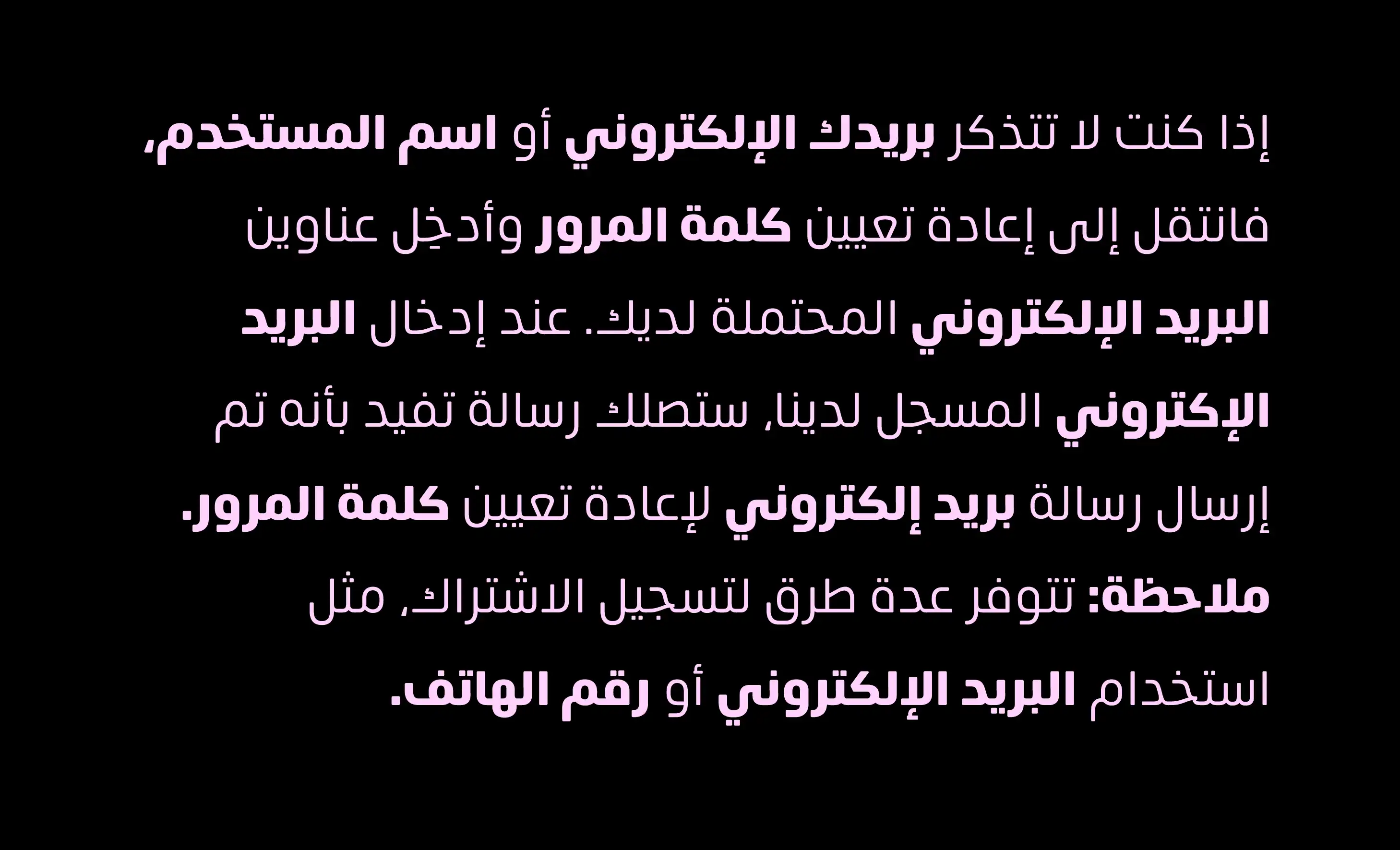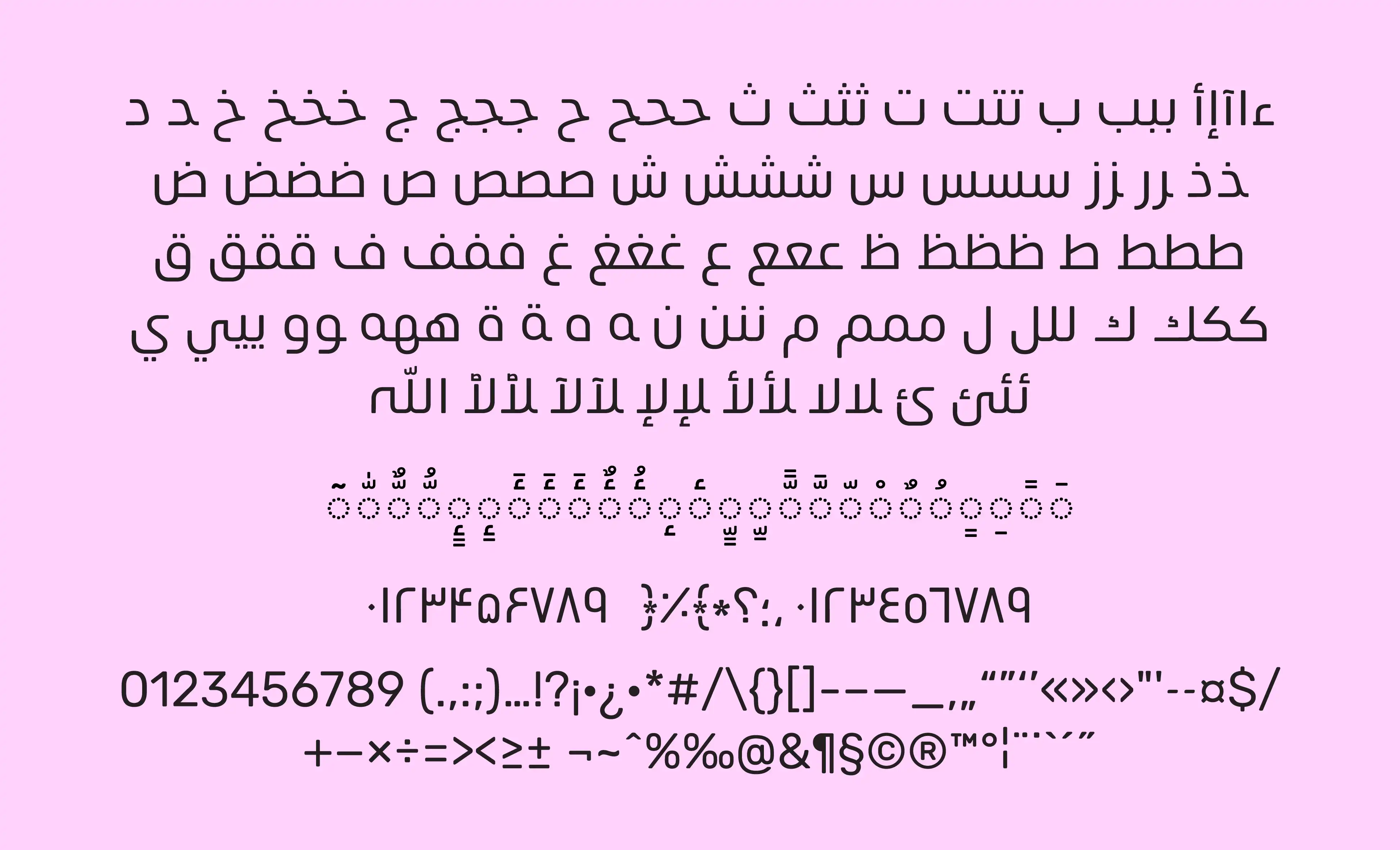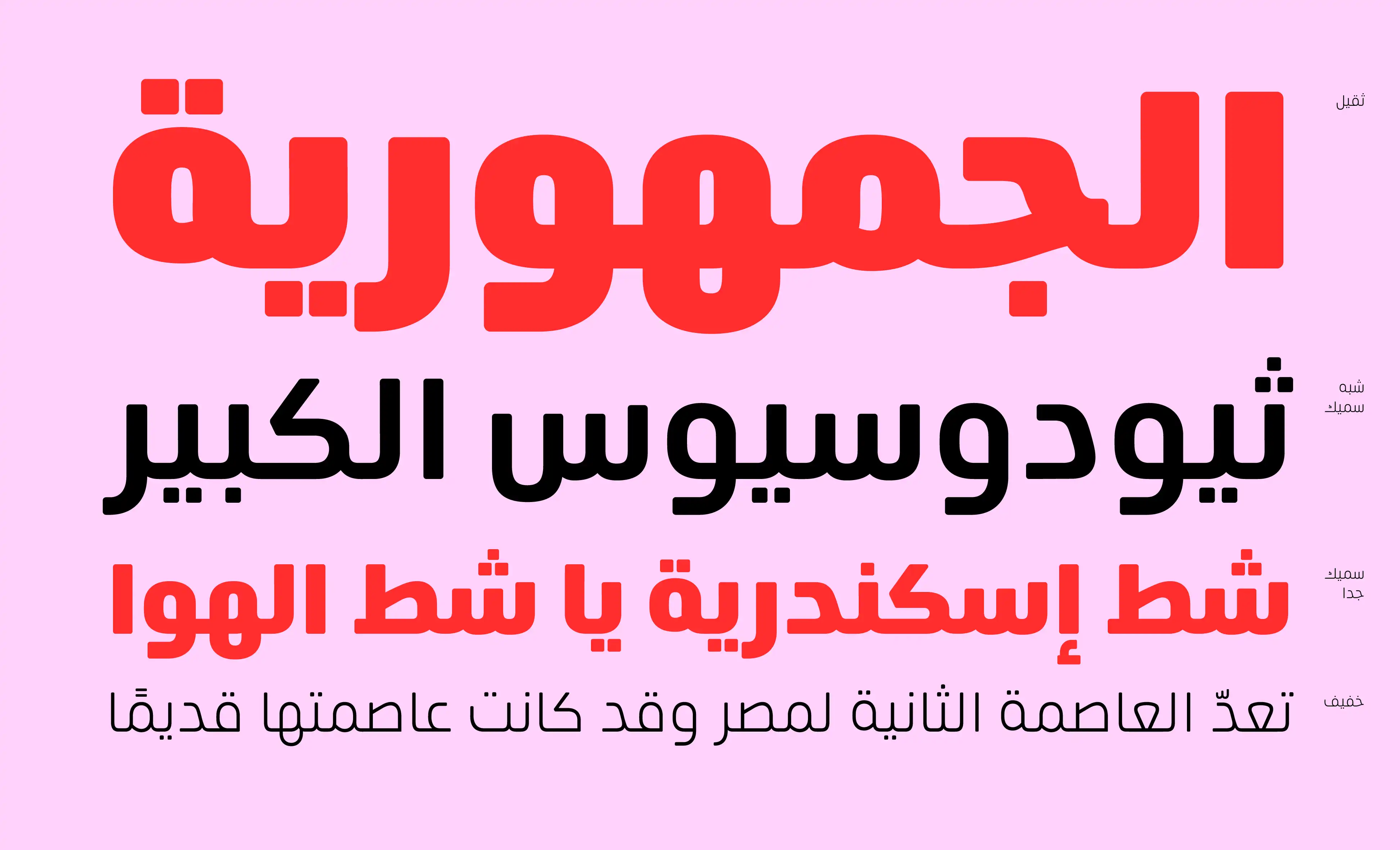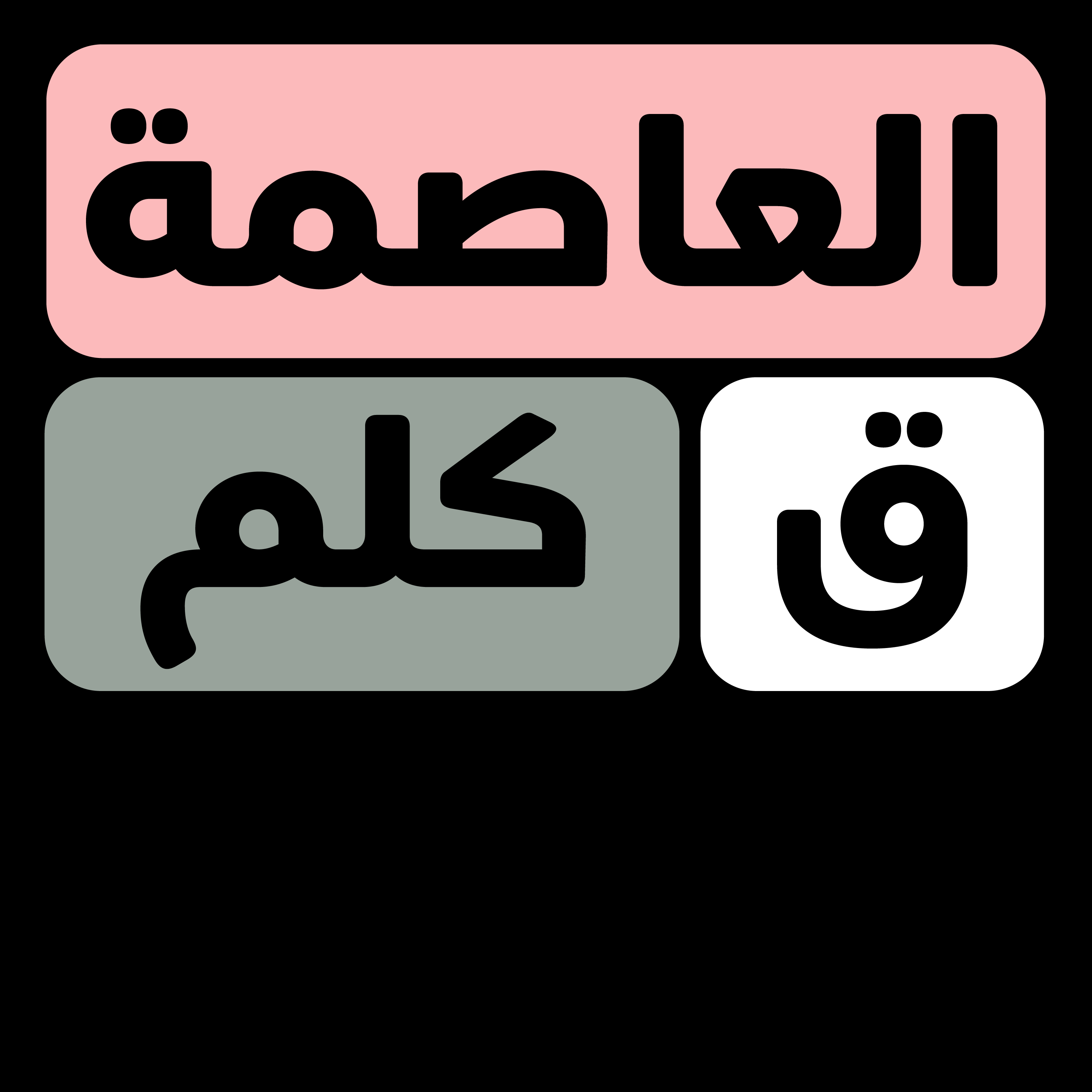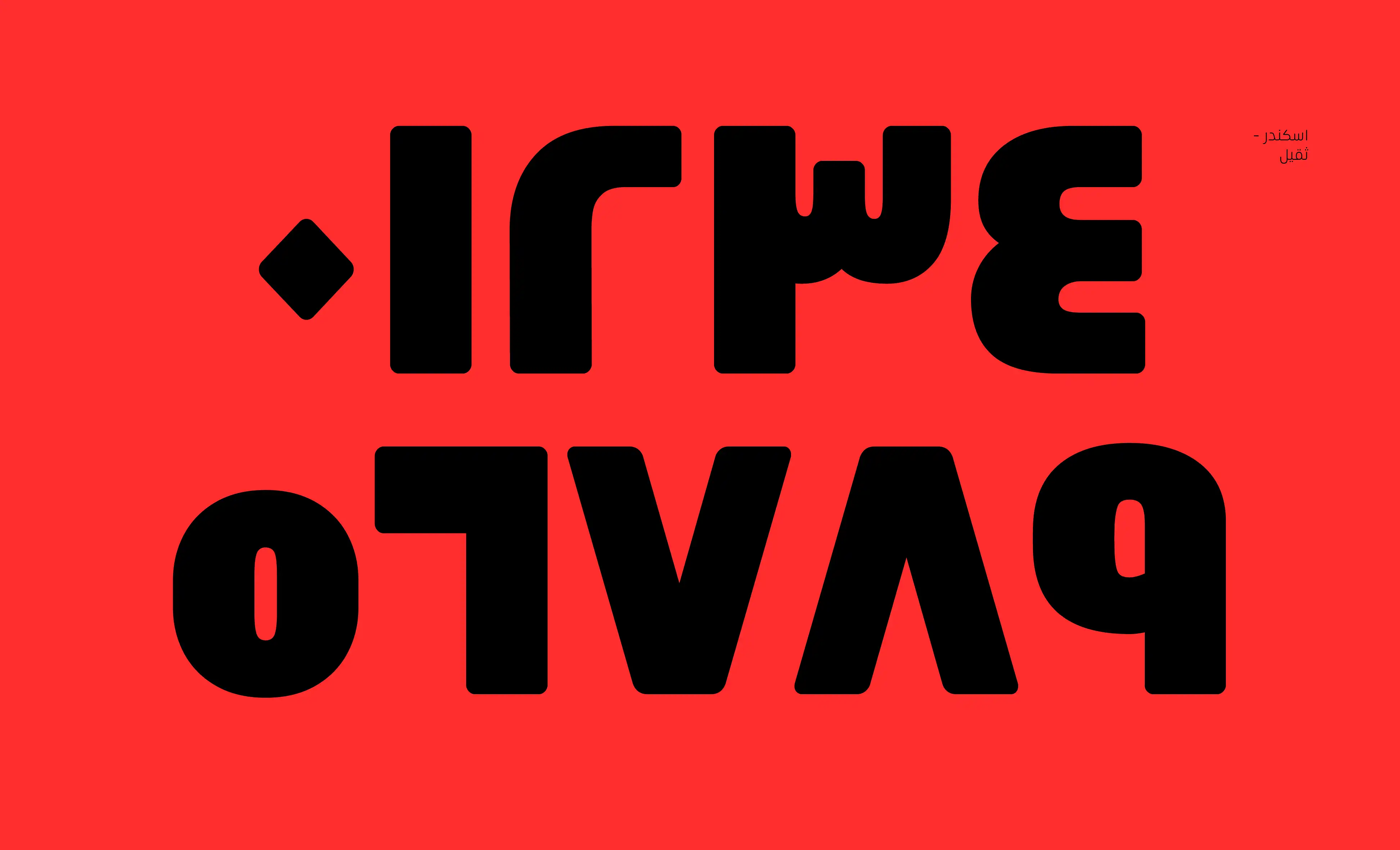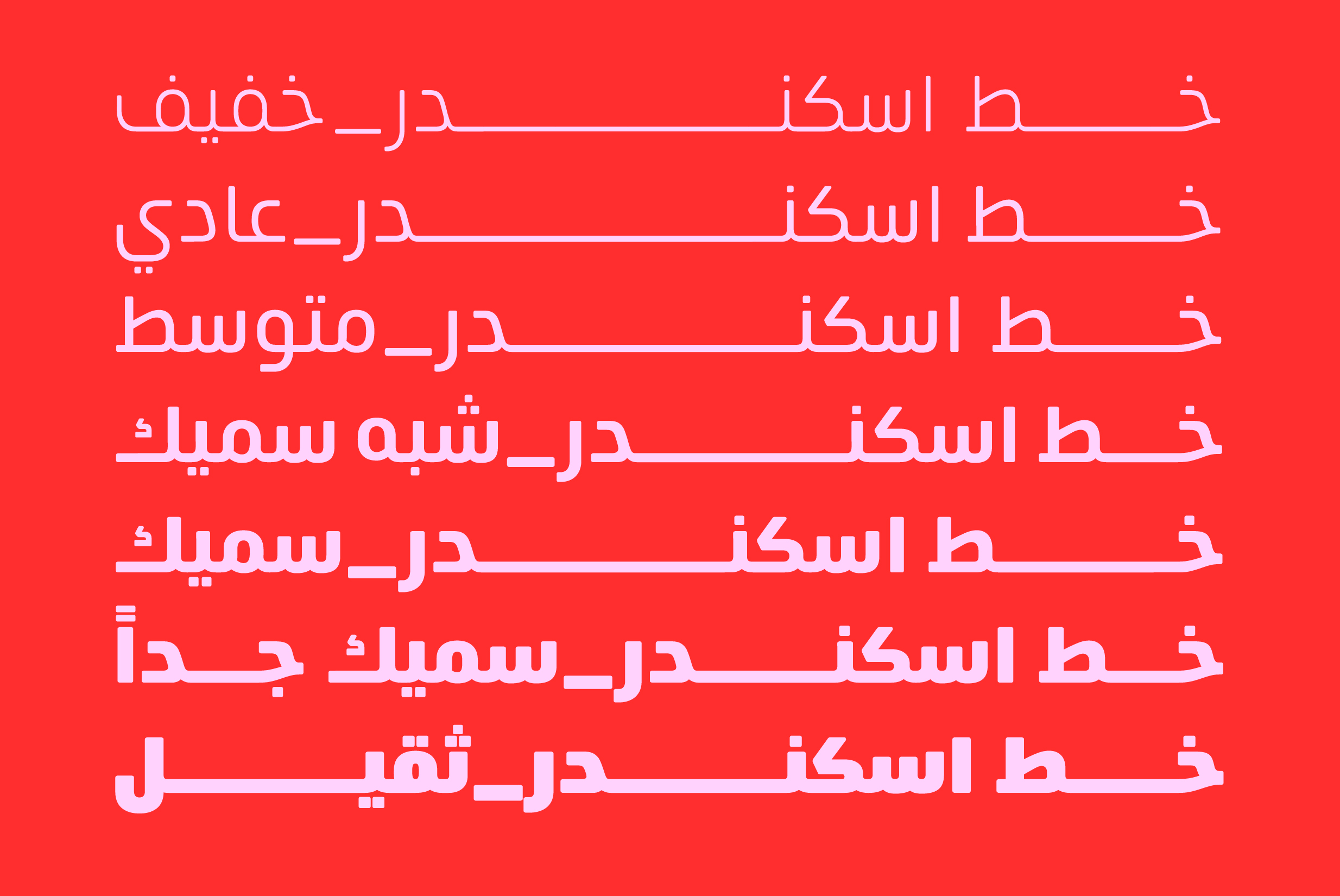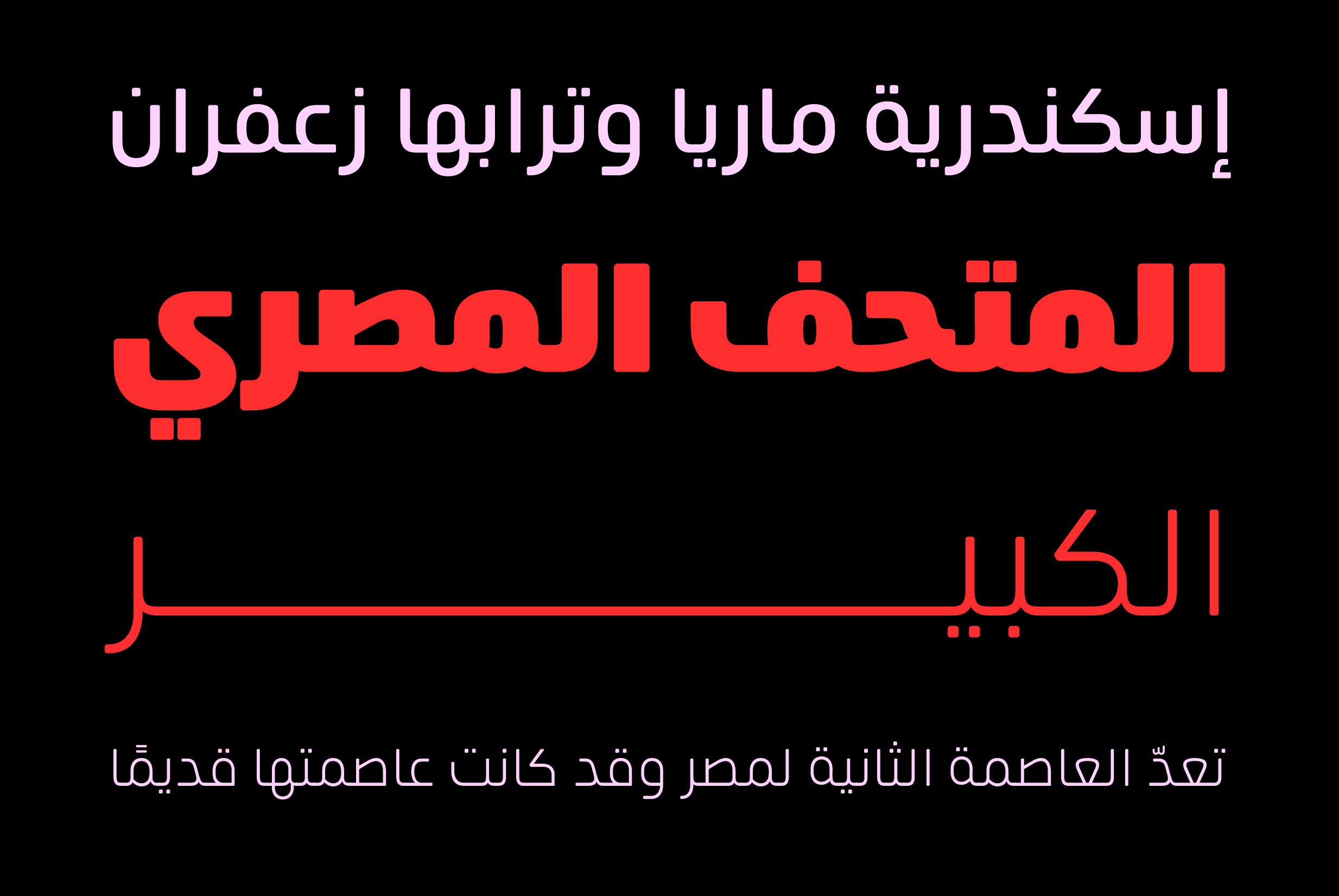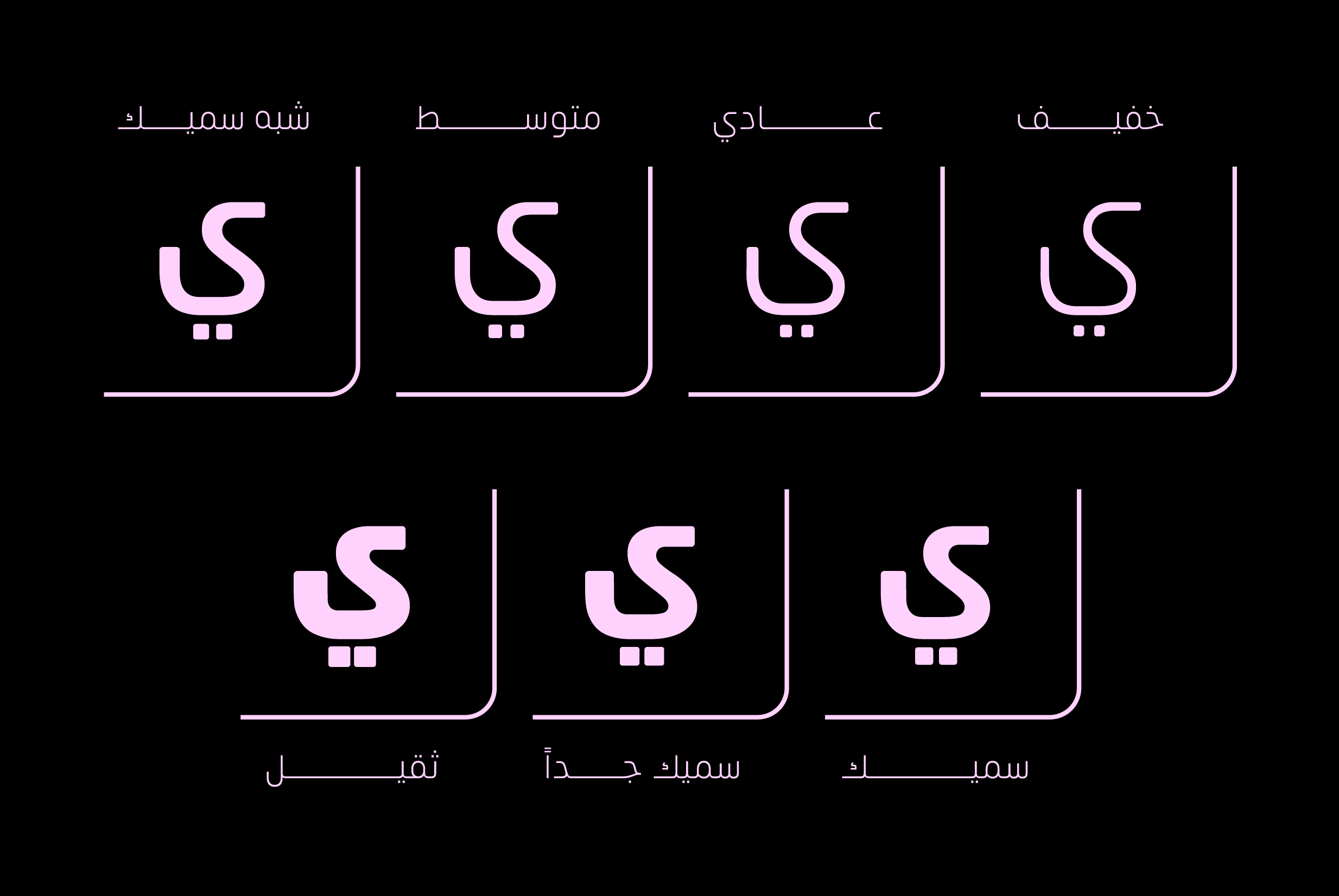
Rounded Arabic Type for Modern Communication.
Eskander was originally designed in 2018 and carefully redesigned in 2021. The family includes 7 weights, ranging from Light to Heavy, offering flexibility across a wide range of design applications. With its rounded edges and friendly Arabic letterforms, Eskander brings warmth, clarity, and approachability to modern communication. Designed for web, digital applications, and print, it supports Arabic, Persian, and Urdu with a refined typographic voice. Eskander is a trademark of Protype Foundry Ltd.
Opentype Features
Contextual Alternates, Stylistic Alternates, Standard Ligatures, Subscript, Scientific Inferiors, Superscript, Numerator, Denominator, Fractions, Ordinals.
Styles & Weights
7 Weights: Light, Regular, Medium, Semi-Bold, Bold, Extra-Bold, Heavy.
Ibrahim Hamdi